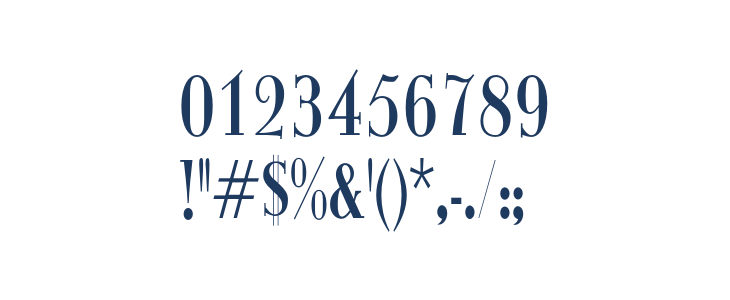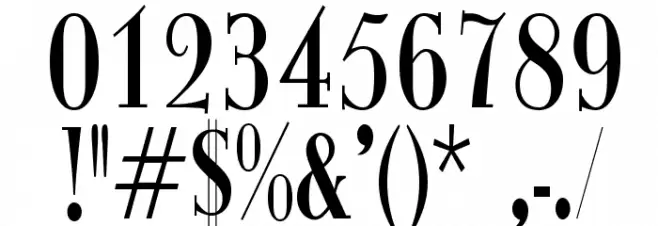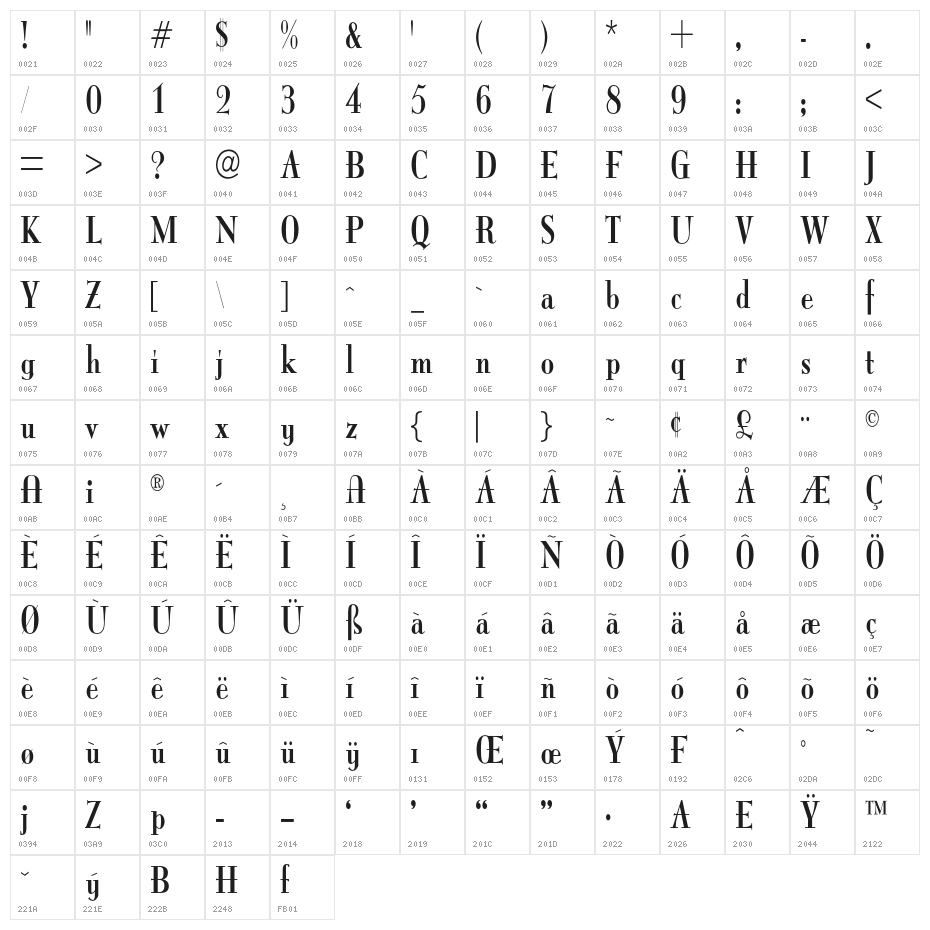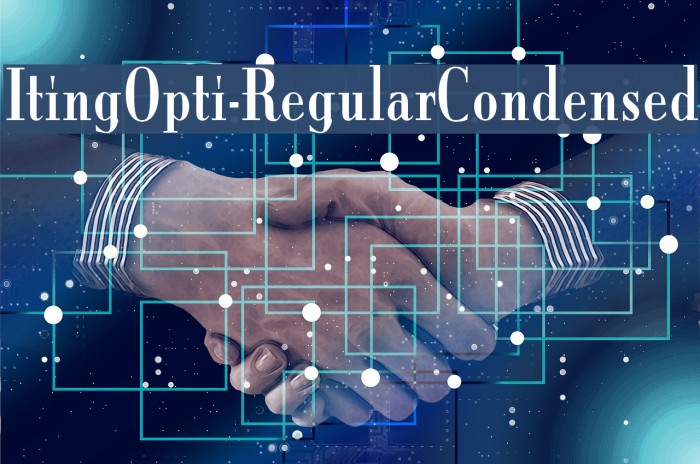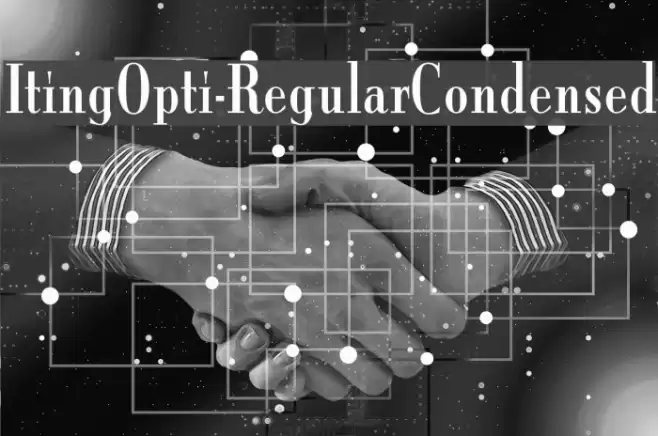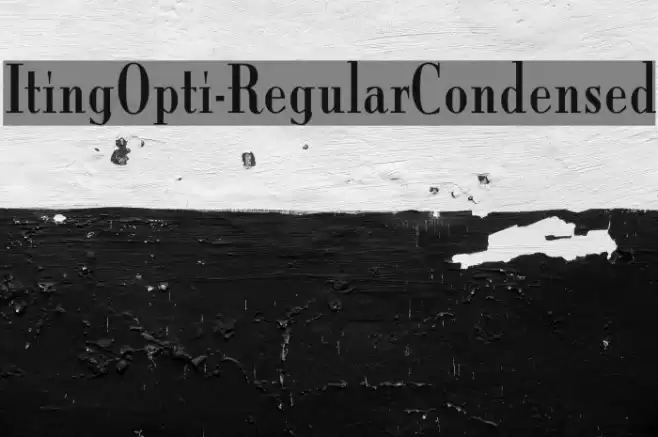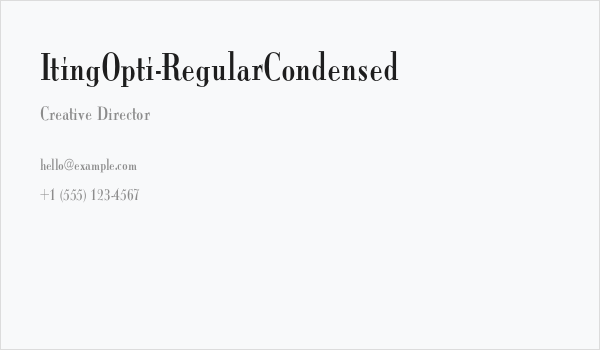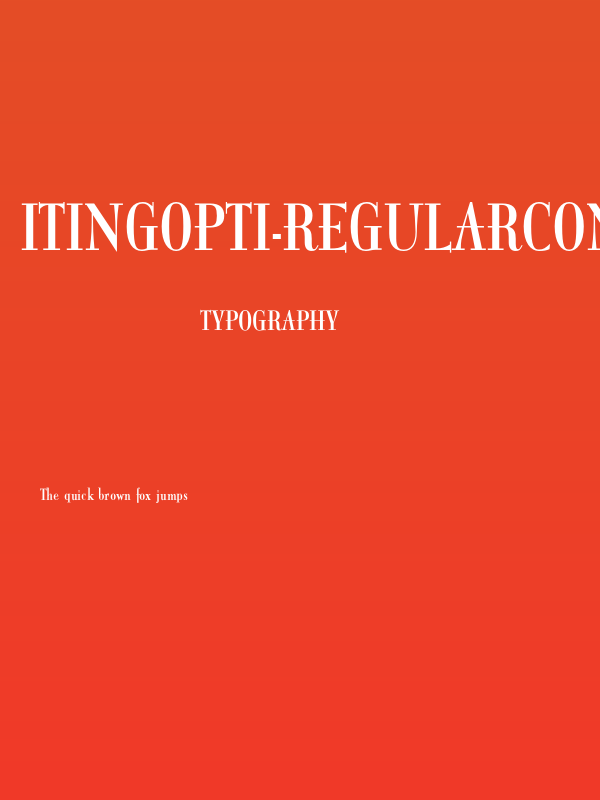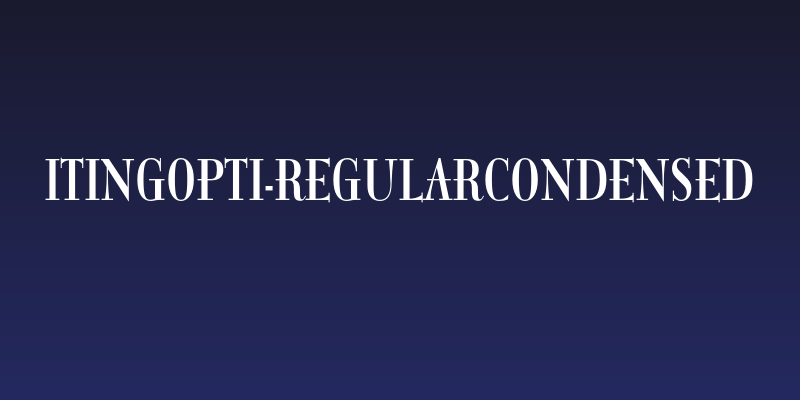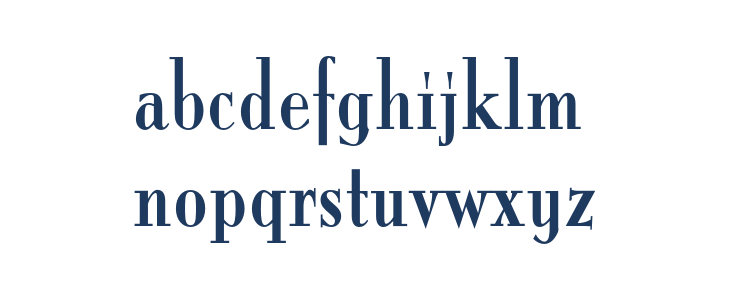
ItingOpti-RegularCondensed Font
ItingOpti-RegularCondensed Description
This font features a condensed serif style with a strong vertical emphasis, characterized by its tall and narrow letterforms. The serifs are sharp and pronounced, adding a touch of elegance and sophistication. The uppercase letters are bold and commanding, while the lowercase letters maintain a consistent height, providing a harmonious balance. The numerals are clear and distinct, making them easily readable. Special characters are well-defined, ensuring versatility in various design applications. The overall appearance is modern yet retains a classic touch, making it suitable for both contemporary and traditional projects.
| Proposed Projects | Ideal for editorial design, book covers, branding, and sophisticated advertising campaigns. |